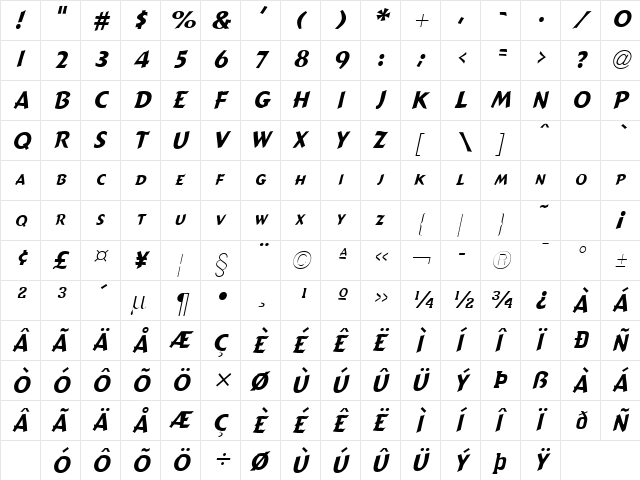
Candide Narrow Italic
Design Context for Candide Narrow Typeface
Candide Narrow offers clean, dependable letterforms without strong stylistic allegiance, making it a practical choice for designers who need flexibility. The slanted form adds forward momentum and visual energy. Its narrow stance lets it pack a punch even in space-constrained designs.
Pro Tip: Use Candide Narrow for emphasis, pull quotes, and subheadings where its slanted energy can add rhythm to the layout.